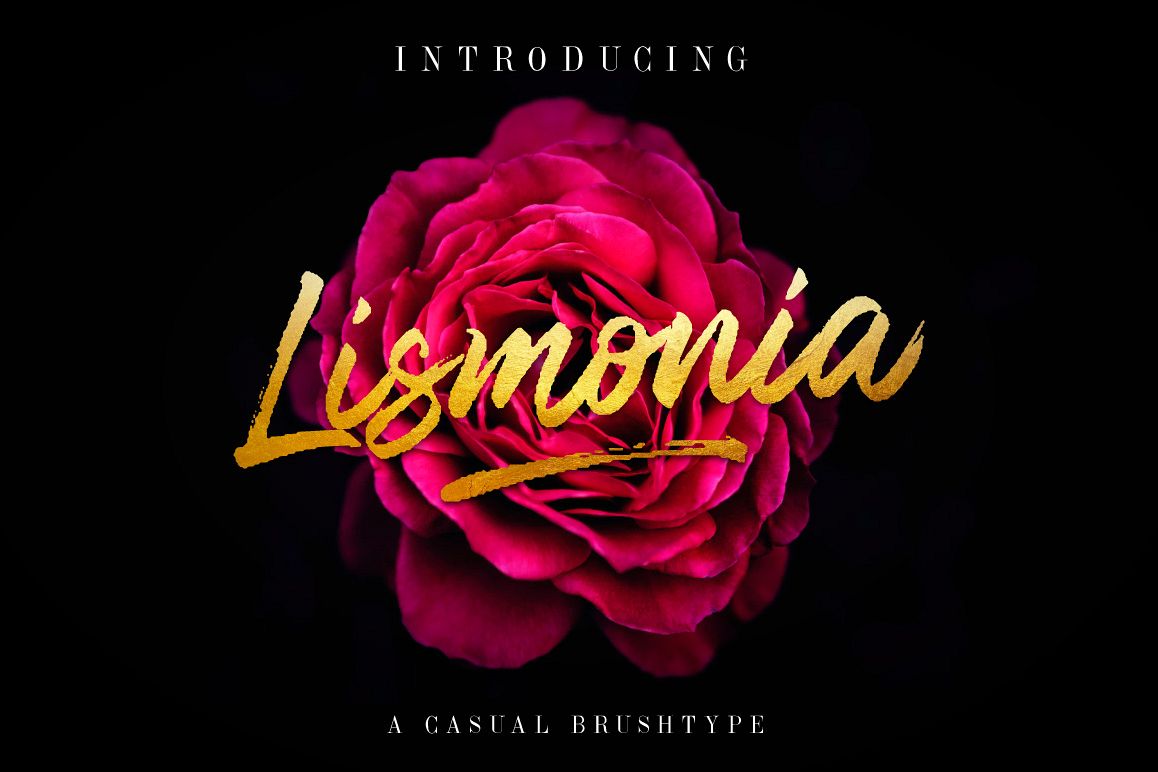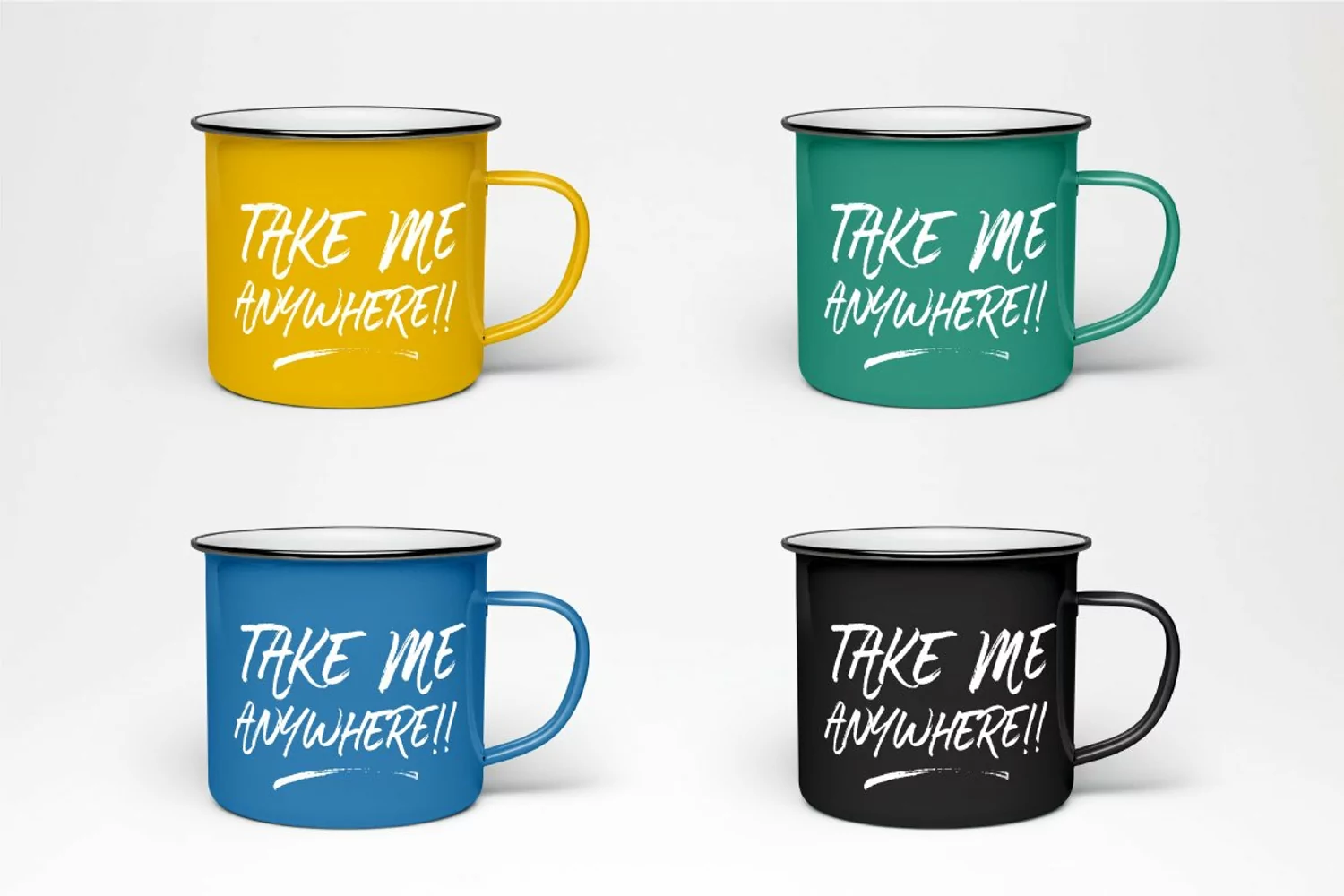
Introducing Lismonia, a casual handwritten brush font with quick dry strokes and a signature style. Lismoniagreat to use for logos, inspirational quotes, t-shirt graphics, typography art, apparel, labels, posters, business cards, stylized wedding invitations, prints, signs, book cover designs headlines, titles, etc.
• Stylistic Alternate
• Stylistic Set
• Swash